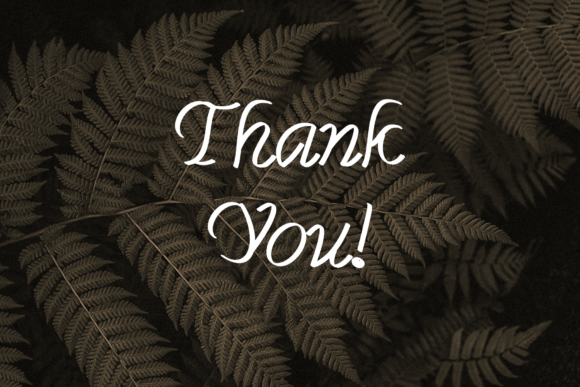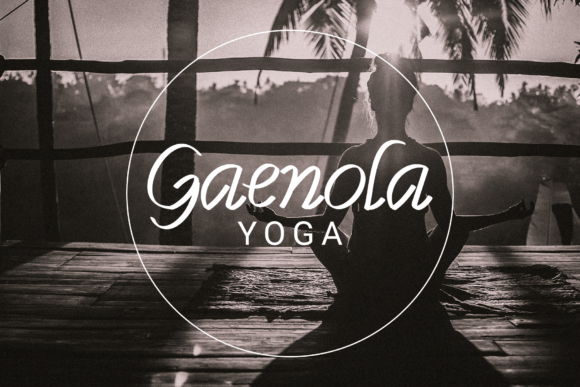
Introduction to Elvoria Font
Have you ever stared at a blank canvas, searching for the perfect words to bring your creative project to life? We’ve all been there, but what if we told you that the right font can make all the difference? Introducing the Elvoria Font, a game-changing addition to the world of typography that’s set to revolutionize the way we design.
As a valuable resource for designers, the Elvoria Font offers a unique blend of casual charm and friendly elegance, making it perfect for a wide range of creative endeavors. From websites and social media graphics to digital art and print materials, this font is sure to add a touch of personality to any design project.
Key Features of Elvoria Font
- High-quality, elegant font perfect for creative projects, suitable as a design resource.
- Unique, cursive script style with a touch of sophistication, ideal for weddings, invitations, and other elegant designs.
Honest Review: Elvoria Font
I recently had the chance to experiment with the Elvoria Font, and I must say it’s been a game-changer for my creative projects. As a designer, I’m always on the lookout for high-quality design resources that can elevate my work.
- ✨ Beautifully crafted characters: The Elvoria Font boasts intricate details and elegant lines that make it perfect for creating visually stunning designs.
- ✨ Versatile: It can be used for a wide range of creative projects, from logos and branding to digital artwork and publications.
While the Elvoria Font excels in many areas, there are a few limitations to consider. For example:
Tips for Getting the Most Out of Elvoria Font
Experiment with different font sizes and styles to create a unique design. Use the Elvoria Font in combination with other design elements to add visual interest to your project.
Common Use Cases for Elvoria Font
The Elvoria Font is ideal for use in logo design, branding, and marketing materials. Its high-quality design and transparent background make it a great choice for any creative project.